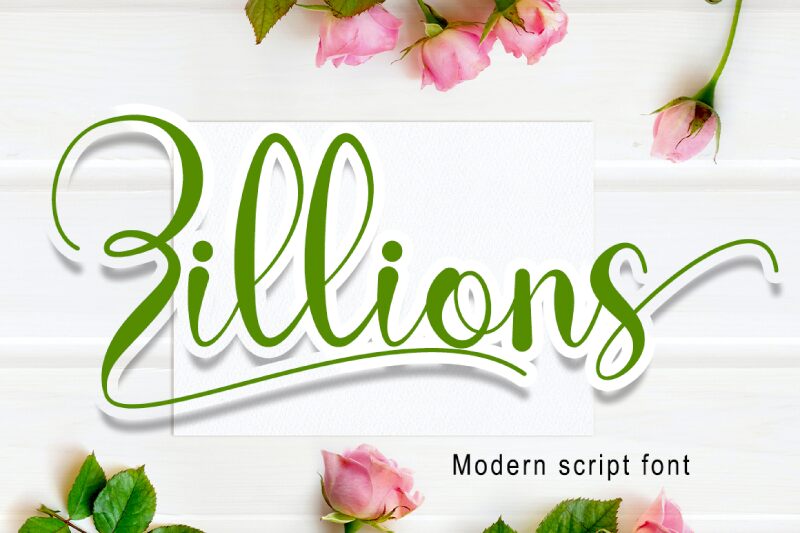
Zillions
Zillions, the breathtaking calligraphy font designed by Fahmi Hayat, is a masterpiece that exudes elegance and sophistication. Its flowing curves, delicate strokes and unique swashes give it an air of refinement that can elevate any design project to new heights. Ideal for wedding invitations, branding projects, greeting cards or any project requiring a touch of romance and charm. The semi-bold font width makes it easy to read while the script style adds personality to your text. With Zillions in your toolkit, you'll have endless possibilities to create stunning designs that will leave a lasting impression on your audience.